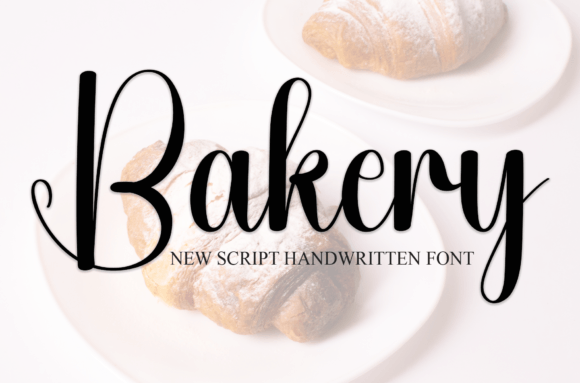
The Sweetest Addition to Your Design Arsenal
Imagine strolling through a quaint bakery, surrounded by the heavenly aroma of freshly baked goods and the warmth of golden lighting. The experience is nothing short of magical, and it’s precisely this feeling that the Bakery Font aims to capture in your designs.
This delightful handwritten font is the perfect companion for any creative project that needs a touch of whimsy and personality. From wedding invitations to birthday cards, Bakery Font adds a fresh and neat charm that’s sure to delight your audience. As a designer, you’ll appreciate the versatility and playfulness that this font brings to your work, making it an invaluable addition to your toolkit.
Bakery Font Key Features
- Font Family: Bakery Font is a unique, hand-drawn font family that offers a range of styles, from casual to elegant.
- Unique Characteristics: The font features a mix of cursive and script elements, with a warm and inviting tone that’s perfect for bakery, food, and lifestyle brands.
- Font Styles: Bakery Font includes a range of styles, including Regular, Italic, Bold, and Bold Italic, offering designers flexibility and versatility.
Bakery Font Review
I’ve had the chance to work with the Bakery Font, and I must say it’s a unique choice for a bakery or food-related design. Here’s my honest review.
- ✨ The font is playful and fun, making it perfect for a bakery or cafe brand that wants to convey a sense of whimsy and friendliness.
- ✨ The Bakery Font has a wide range of characters, including numerals, punctuation, and special characters, which makes it easy to use in various design contexts.
- ✨ The font is highly customizable, allowing designers to adjust the weight, size, and spacing to suit their design needs.
- ⚠️ The font may not be the best choice for formal or professional designs, as it can come across as too casual or playful.
- ⚠️ Some users may find the font’s irregularities and imperfections to be distracting or unprofessional.
- ⚠️ The font may not be suitable for small text sizes, as the characters can become blurry or difficult to read.
The Bakery Font is a fun and playful choice for designers looking to create a lighthearted or whimsical brand identity. While it may not be the best choice for formal designs, it’s perfect for bakeries, cafes, or food-related businesses that want to convey a sense of friendliness and approachability.
For the most effective use of the Bakery Font, pair it with warm and inviting colors, and consider using it for bakery-themed designs, food labels, or restaurant branding.
Some common use cases include:
– Bakery and food labels
– Restaurant branding and signage
– Food-related packaging and advertising
Alternatives to Bakery Font
Playfair Display is a luxurious and elegant script font. It’s ideal for use in high-end branding, invitations, and magazine titles. When to use: formal events, luxury brands, and upscale products.
Compared to Bakery Font, Playfair Display has a more refined and sophisticated feel. While Bakery Font is playful and whimsical, Playfair Display exudes elegance and sophistication.
Great Vibes is a modern and stylish script font. It’s perfect for use in creative branding, social media, and advertising. When to use: creative agencies, fashion brands, and trendy products.
Compared to Bakery Font, Great Vibes has a more modern and edgy feel. While Bakery Font is warm and inviting, Great Vibes is cool and trendy.
Anton
Anton is a elegant and sophisticated sans-serif font. It’s ideal for use in high-end branding, corporate identities, and editorial design. When to use: formal events, corporate brands, and serious products.
Compared to Bakery Font, Anton has a more modern and clean feel. While Bakery Font is playful and whimsical, Anton is professional and sophisticated.
Carolyna Pro is a modern and stylish script font. It’s perfect for use in creative branding, social media, and advertising. When to use: creative agencies, fashion brands, and trendy products.
Q: Are there any technical requirements or compatibility issues I should be aware of?